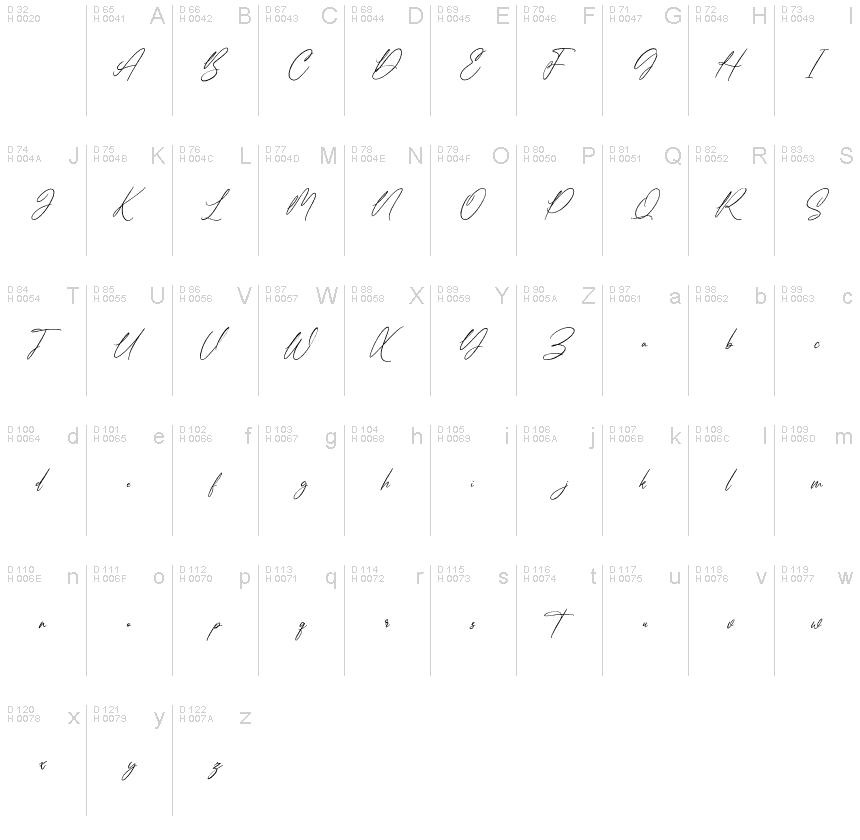
Jonathan Billy Free Regular
Jonathan Billy, the newest addition to Maulana Creative's impressive font family, offers a touch of elegance and personalization. With its handwritten signature style, this extra-light typeface adds a unique flair to any project. Its semi-condensed width makes it versatile for various designs; from wedding invitations to luxury branding and everything in between. Jonathan Billy is perfect for evoking a sense of individuality and sophistication in your work. Let your creativity soar with this one-of-a-kind font that will leave an unforgettable impression on anyone who lays eyes on it.